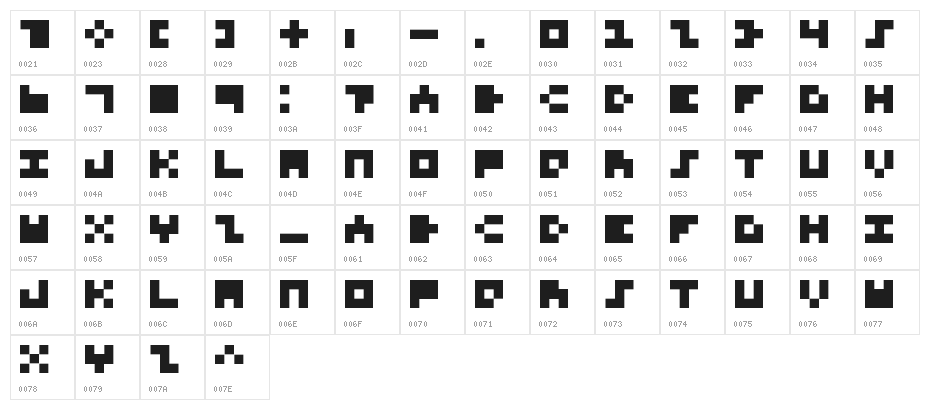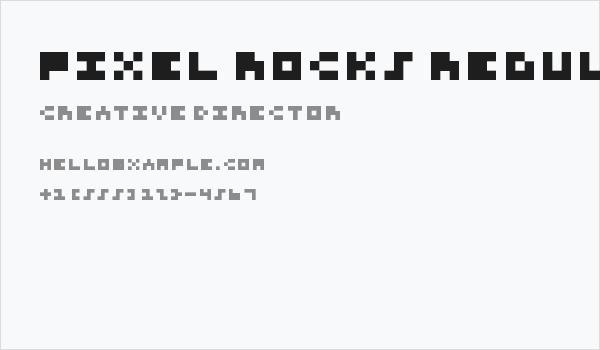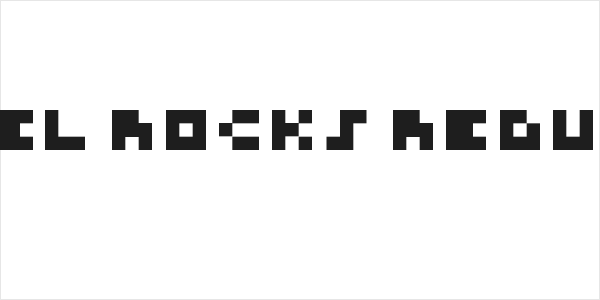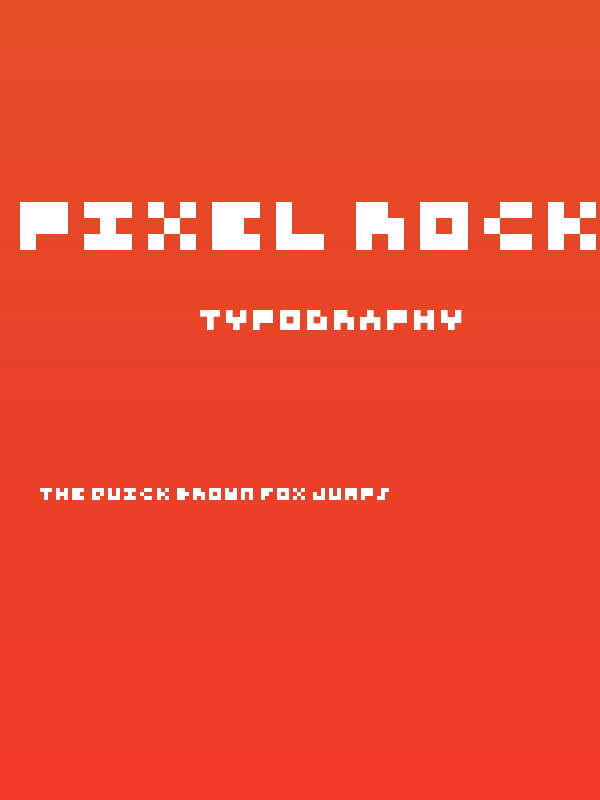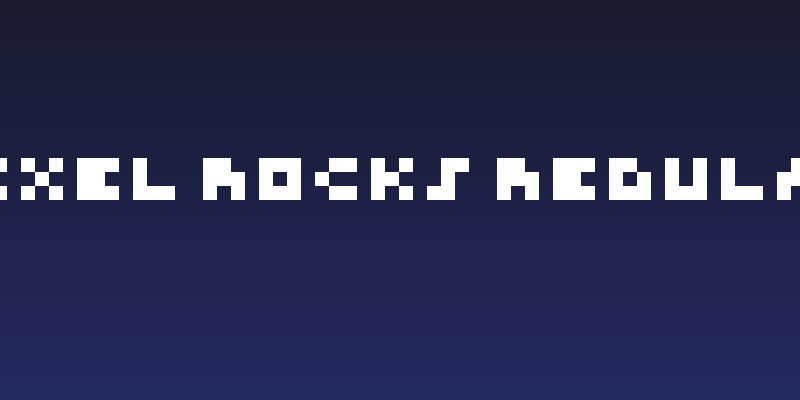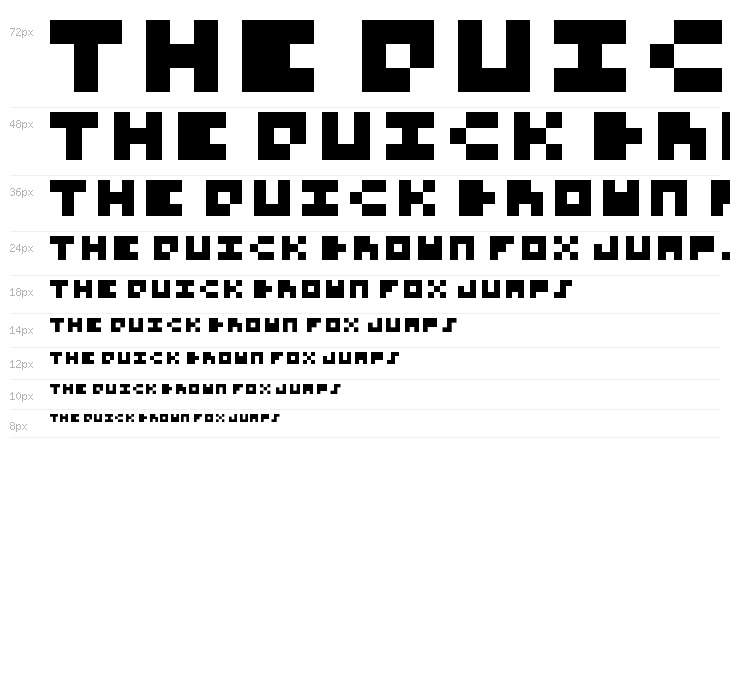
Pixel rocks Regular Font
Pixel rocks Regular Description
This font features a bold, pixelated design reminiscent of retro video games and digital displays. Each character is constructed with a blocky, geometric style, giving it a distinctly digital and modern appearance. The uppercase and lowercase letters maintain a consistent height, emphasizing uniformity and simplicity. Numbers and special characters follow the same pixelated pattern, ensuring a cohesive look across all glyphs. The font's design is straightforward, with no curves or embellishments, making it ideal for projects that require a tech-savvy or nostalgic aesthetic.
| Proposed Projects | Ideal for video game graphics, tech-themed posters, digital art projects, or any design requiring a retro digital aesthetic. |